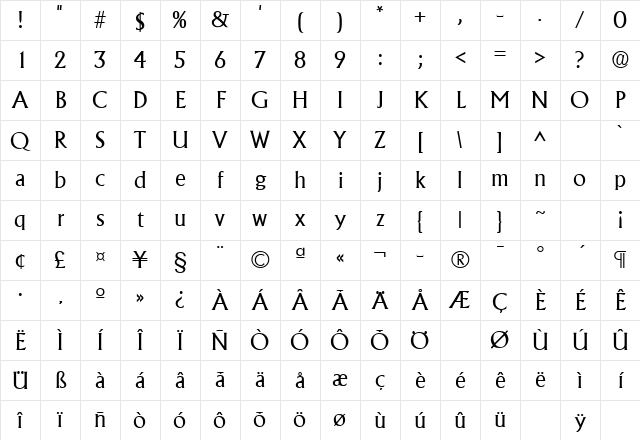
Adelon Regular
Adelon Family
Adelon Regular
Complete Adelon Regular glyph index. Displaying only characters natively supported by Adelon Regular font.
Design Context for Adelon
Adelon is a composed and adaptable typeface that performs quietly and consistently across a wide range of design contexts.